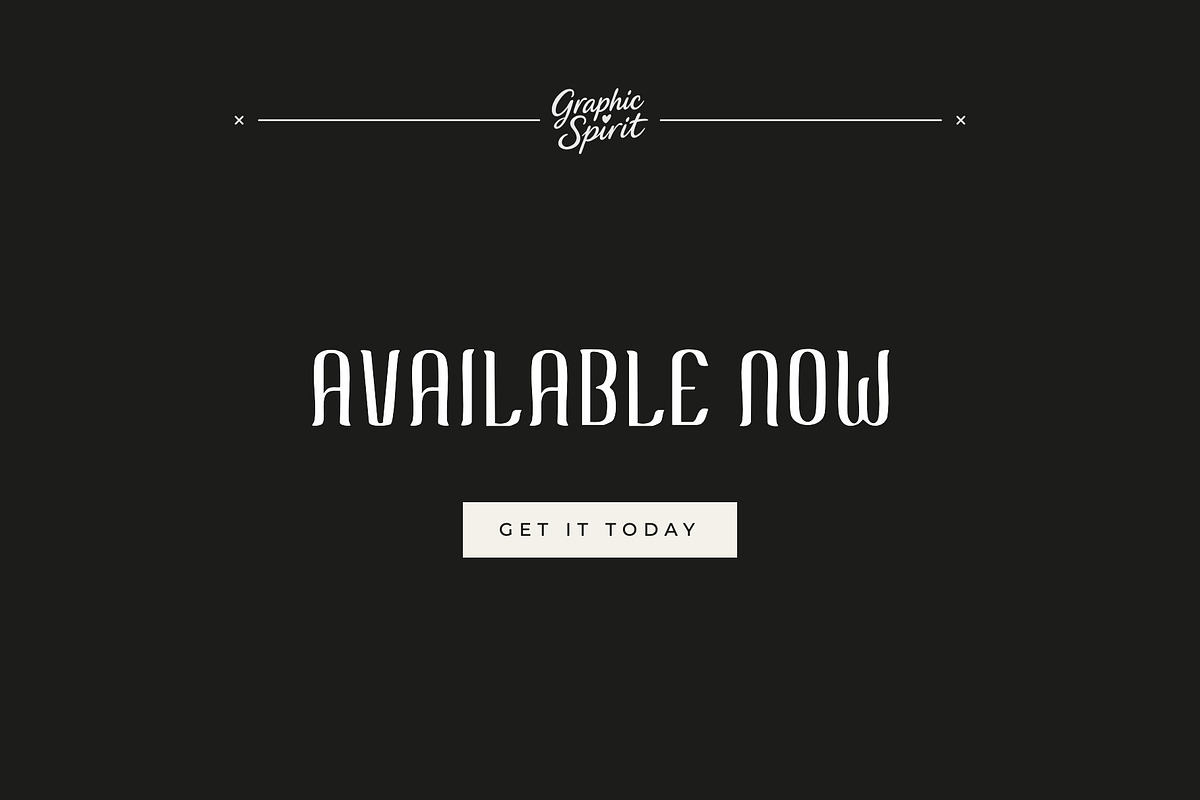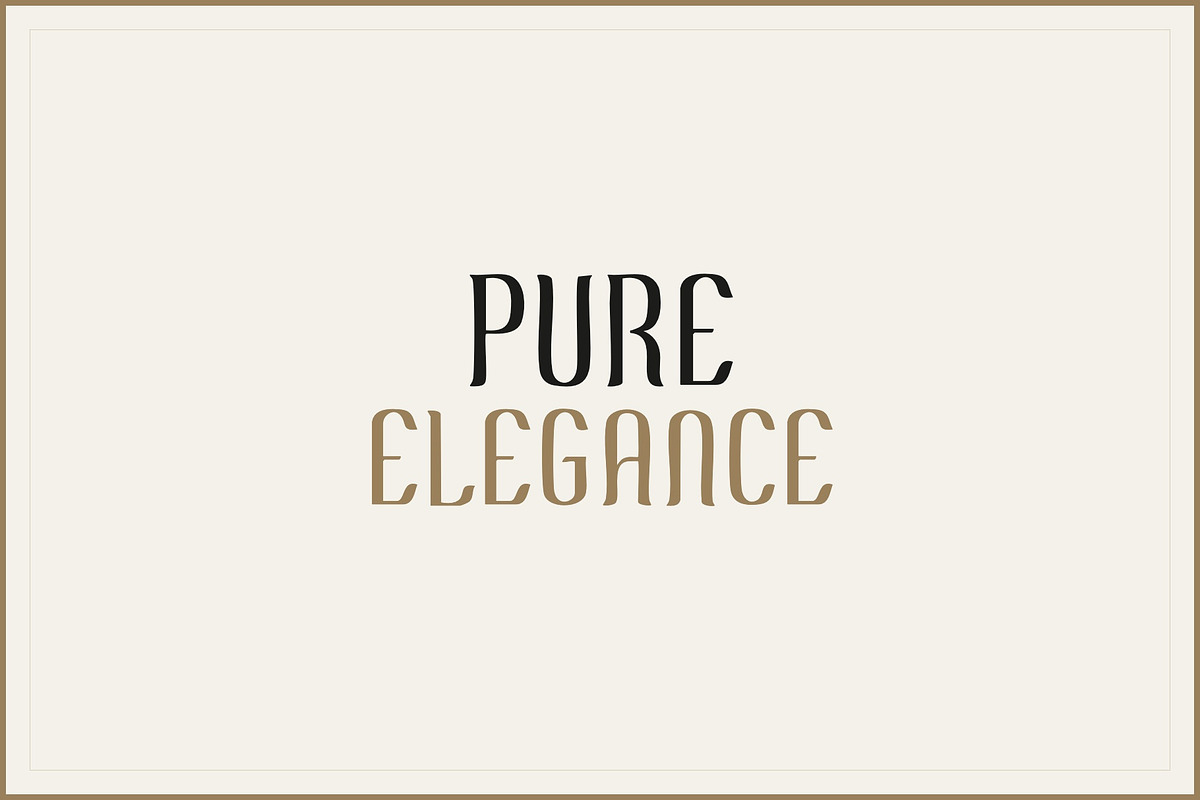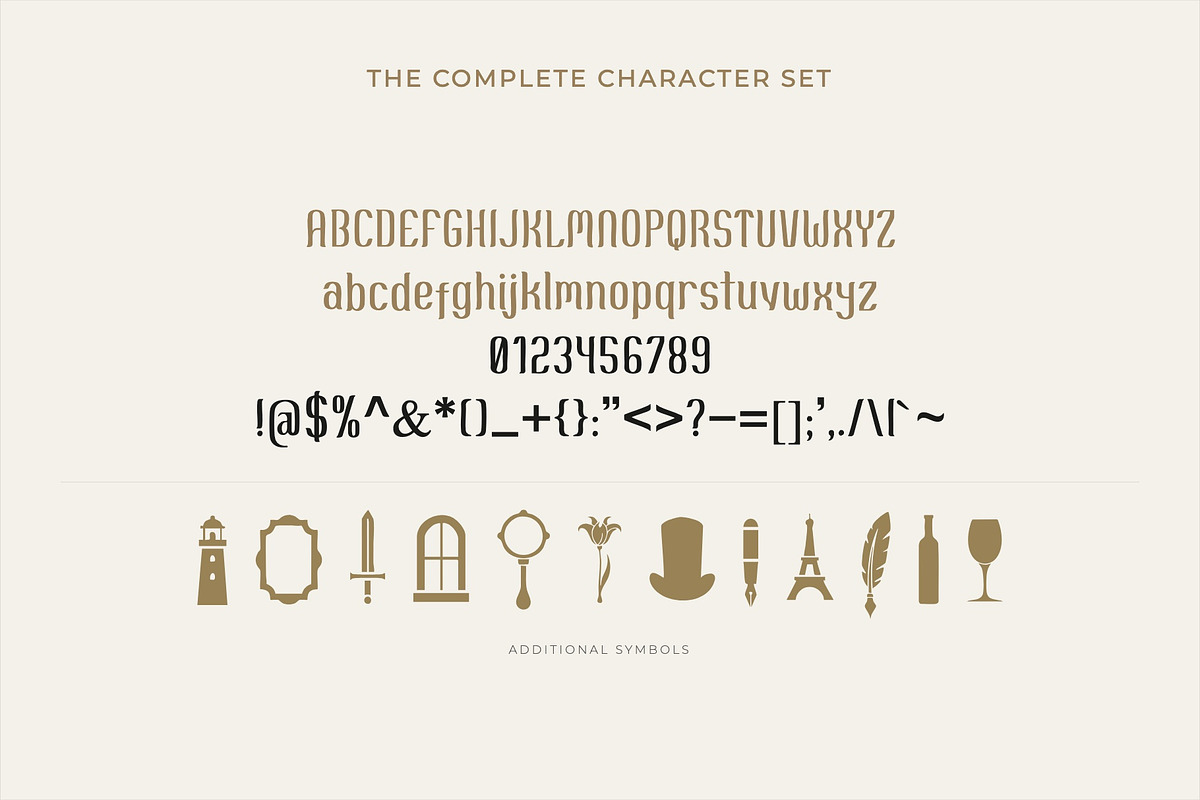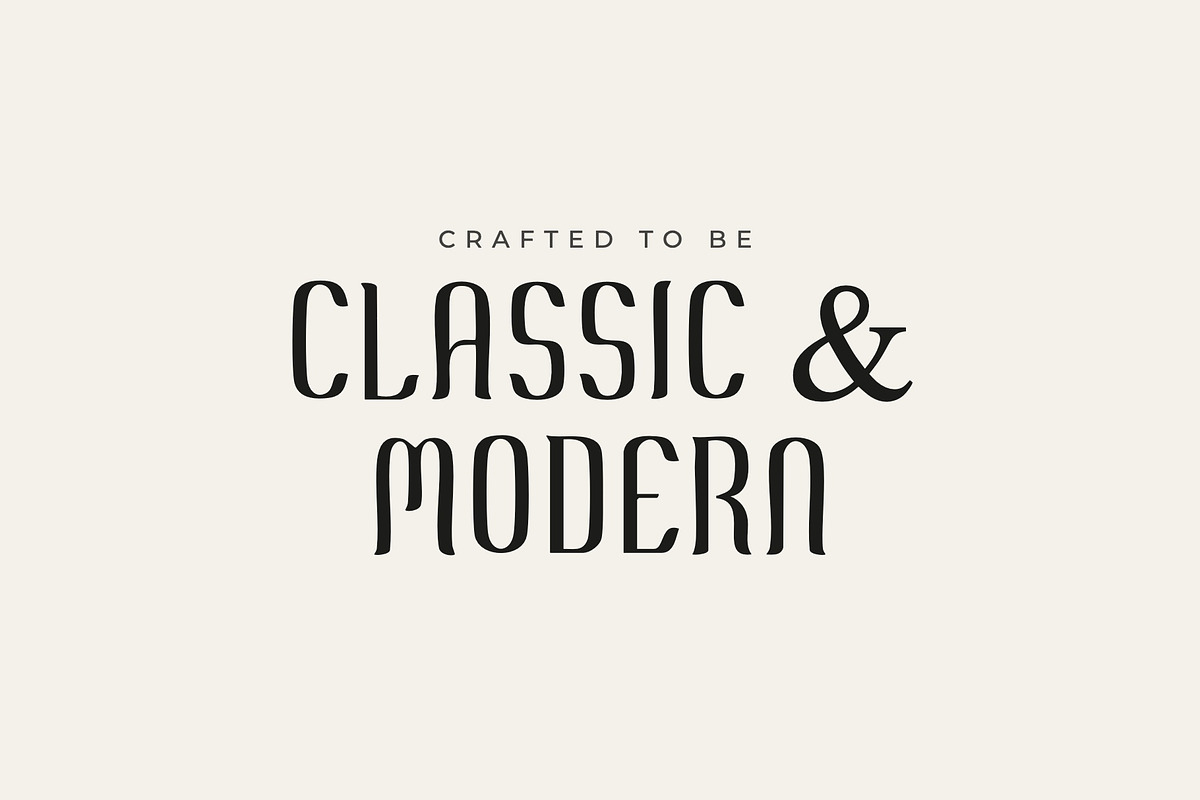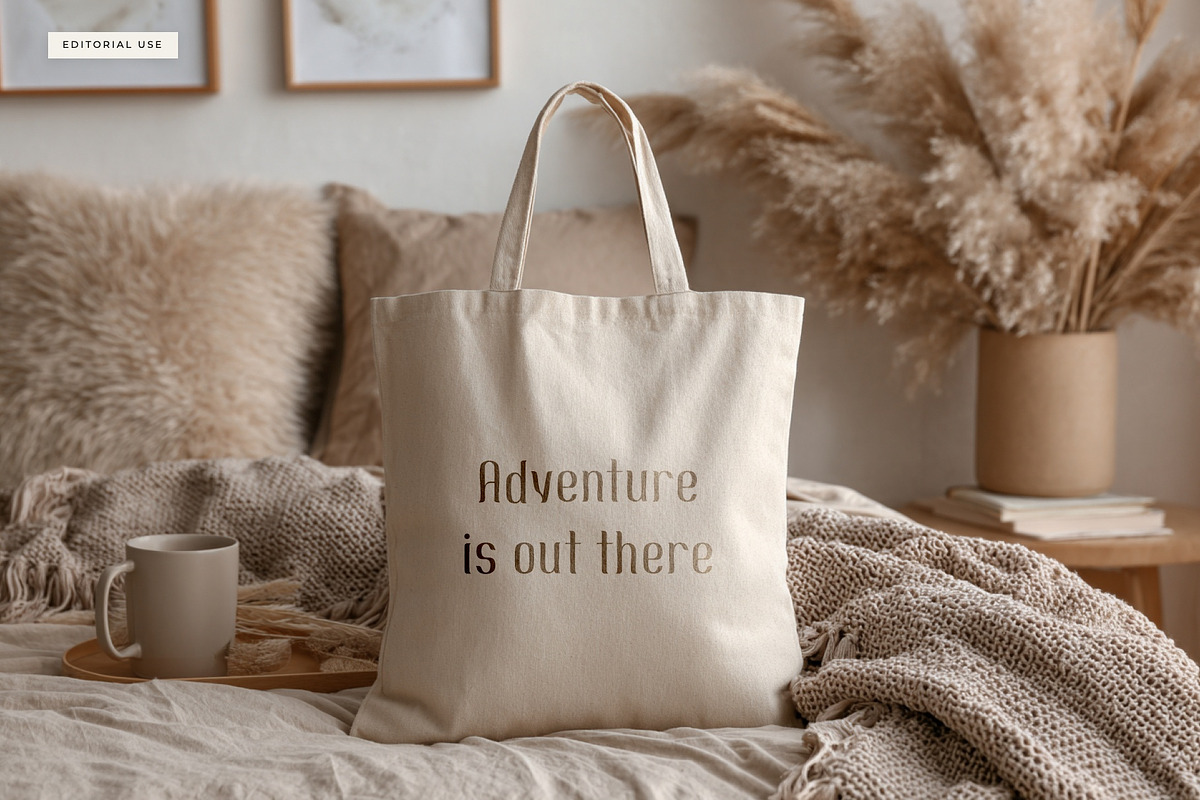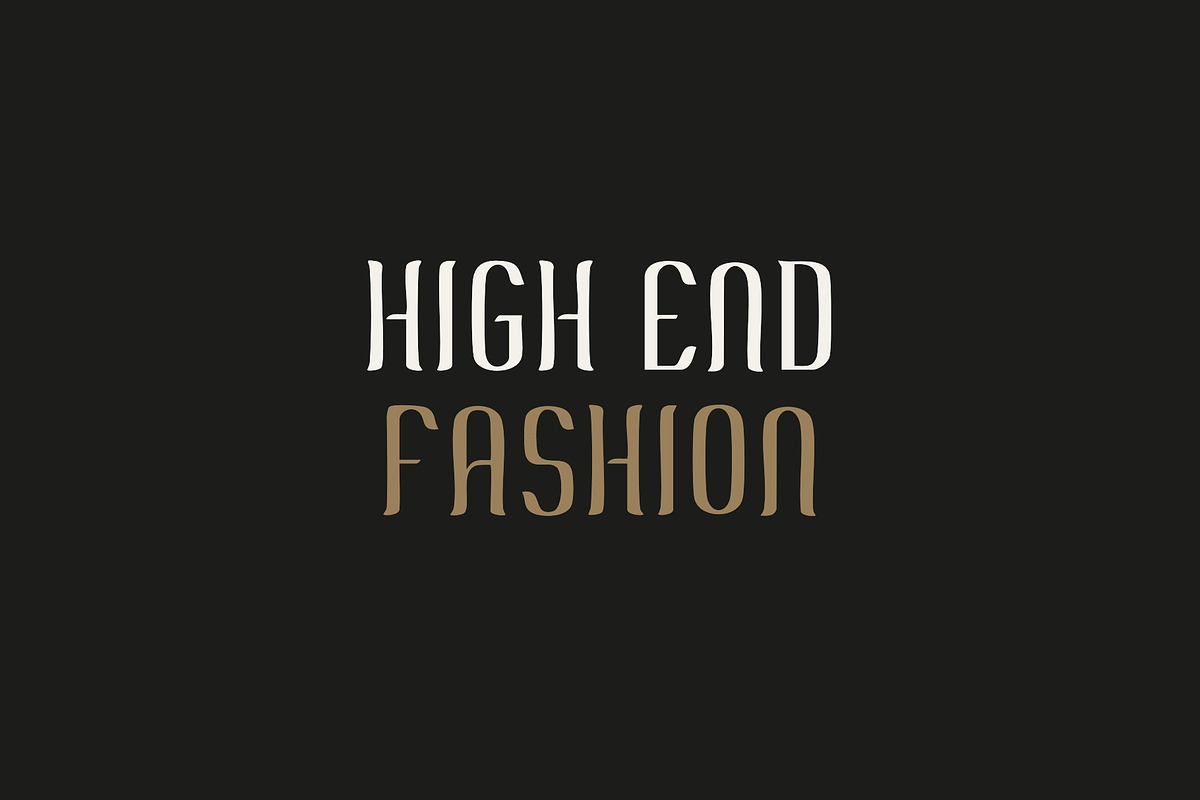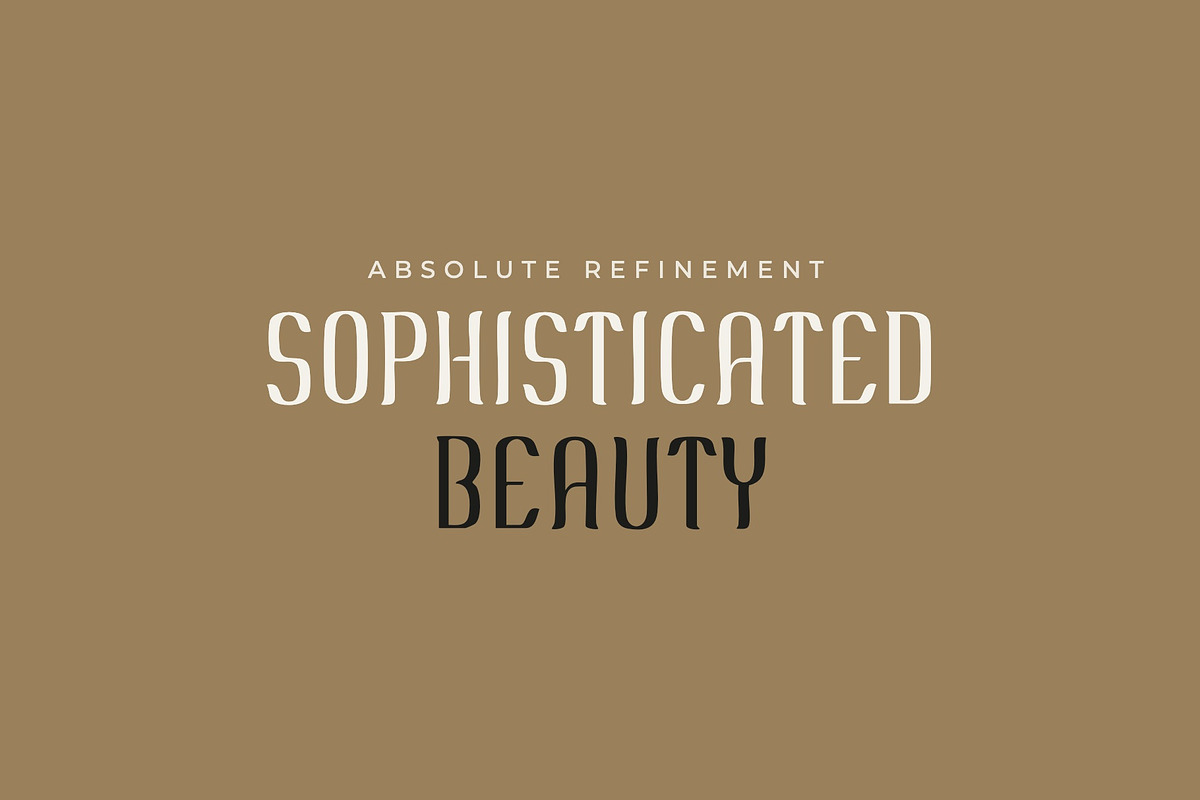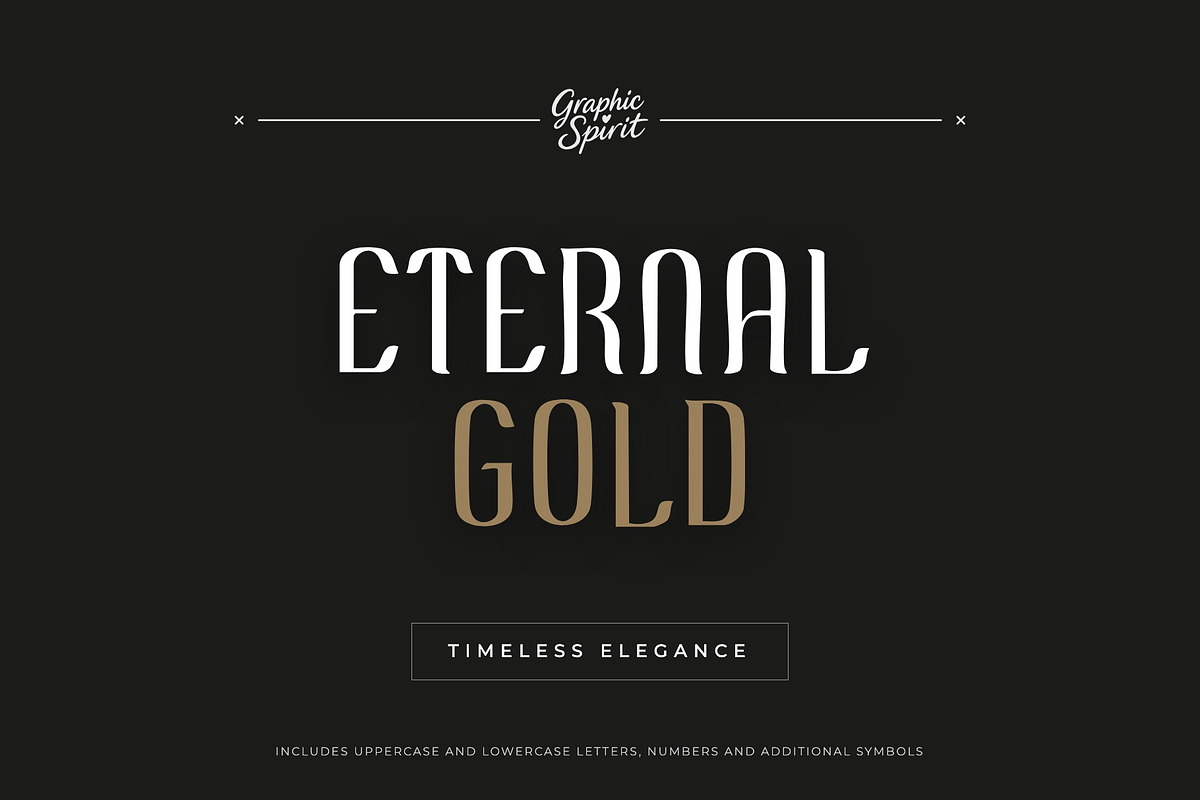
Eternal Gold Decorative Font
💎 Eternal Gold is a premium serif font crafted for creative professionals who demand elegance and structural prestige in their typography. This versatile typeface features refined serifs and a high-end aesthetic, making it an essential tool for luxury branding, sophisticated editorial design, and high-impact digital projects. Each character is designed with a specific polish that adds a professional yet graceful touch to your visual narratives.
💎 The font's unique glyphs and luxurious additions provide a state-of-the-art look that stands out in any professional environment. Whether you are creating a bespoke logo or a sophisticated headline, Eternal Gold offers the flexibility and professional polish needed to make your work truly memorable. Integrate this high-quality asset into your workflow to achieve a seamless blend of luxury style and timeless storytelling power across all your designs. 💎